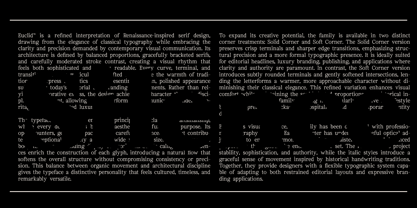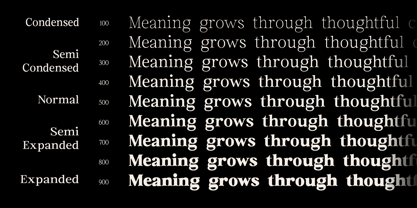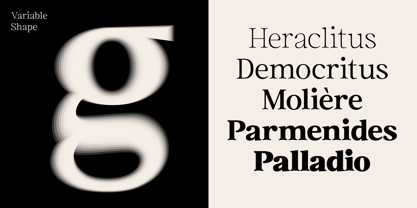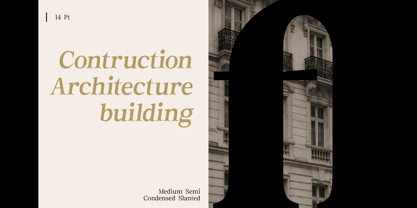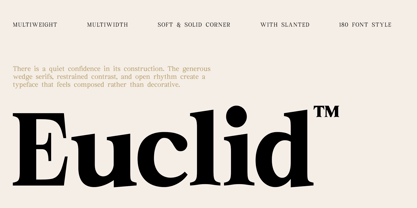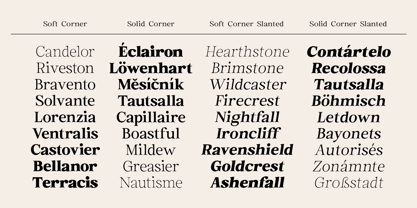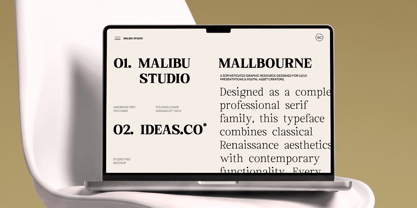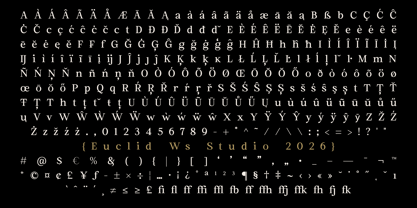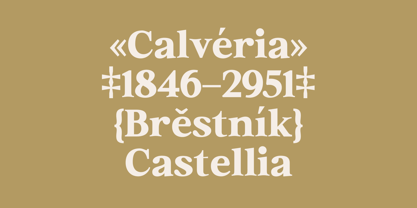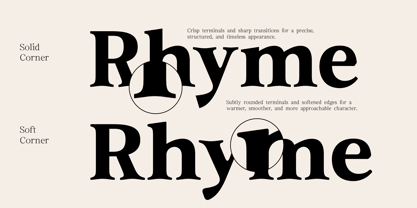
Euclid
The Euclid Font Family was designed by Wais Alqarni and published by Ws Studio. Euclid contains 180 styles and family package options. More about this family
Euclid™ — A Refined Renaissance-Inspired Serif Family
Euclid™ is a sophisticated serif typeface that reinterprets the elegance of Renaissance typography through a contemporary lens. Carefully constructed with graceful proportions, expressive serifs, refined contrast, and distinctive terminals, Euclid balances classical character with modern clarity and versatility.
Designed as a comprehensive typographic system, Euclid offers extensive control over both weight and width. Its range moves from Condensed to Expanded proportions and from delicate lighter weights to substantial heavier styles, allowing designers to create everything from refined editorial layouts to commanding display typography. Slanted styles add a subtle sense of movement while preserving the family’s distinctive structure and rhythm.
Euclid also introduces two distinctive corner treatments: Solid Corner and Soft Corner. Solid Corner emphasizes sharper terminals and crisp transitions for a more formal, architectural appearance, while Soft Corner introduces subtly rounded details that create a warmer and more approachable expression. Together, these variations provide additional flexibility without compromising the underlying character of the typeface.
With its combination of classical influence and contemporary functionality, Euclid is particularly suited to luxury branding, fashion and beauty identities, editorial design, magazines, books, art direction, packaging, cultural institutions, hospitality, architecture, and sophisticated digital experiences. Its broad range of proportions and weights makes it equally effective for elegant headlines, expressive display typography, and carefully composed text settings.
The family includes extensive functionality, including standard and discretionary ligatures, stylistic alternates, contextual alternates, stylistic sets, fractions, superscripts, subscripts, multilingual support, and a wide selection of alternate glyphs. The included characters and carefully developed diacritics provide broad language support for professional international typography.
Euclid is a versatile serif system created for designers who value structure, elegance, historical reference, and contemporary expression. From restrained editorial compositions to distinctive brand identities, it offers a sophisticated typographic foundation with enough flexibility to adapt to a wide range of creative applications.